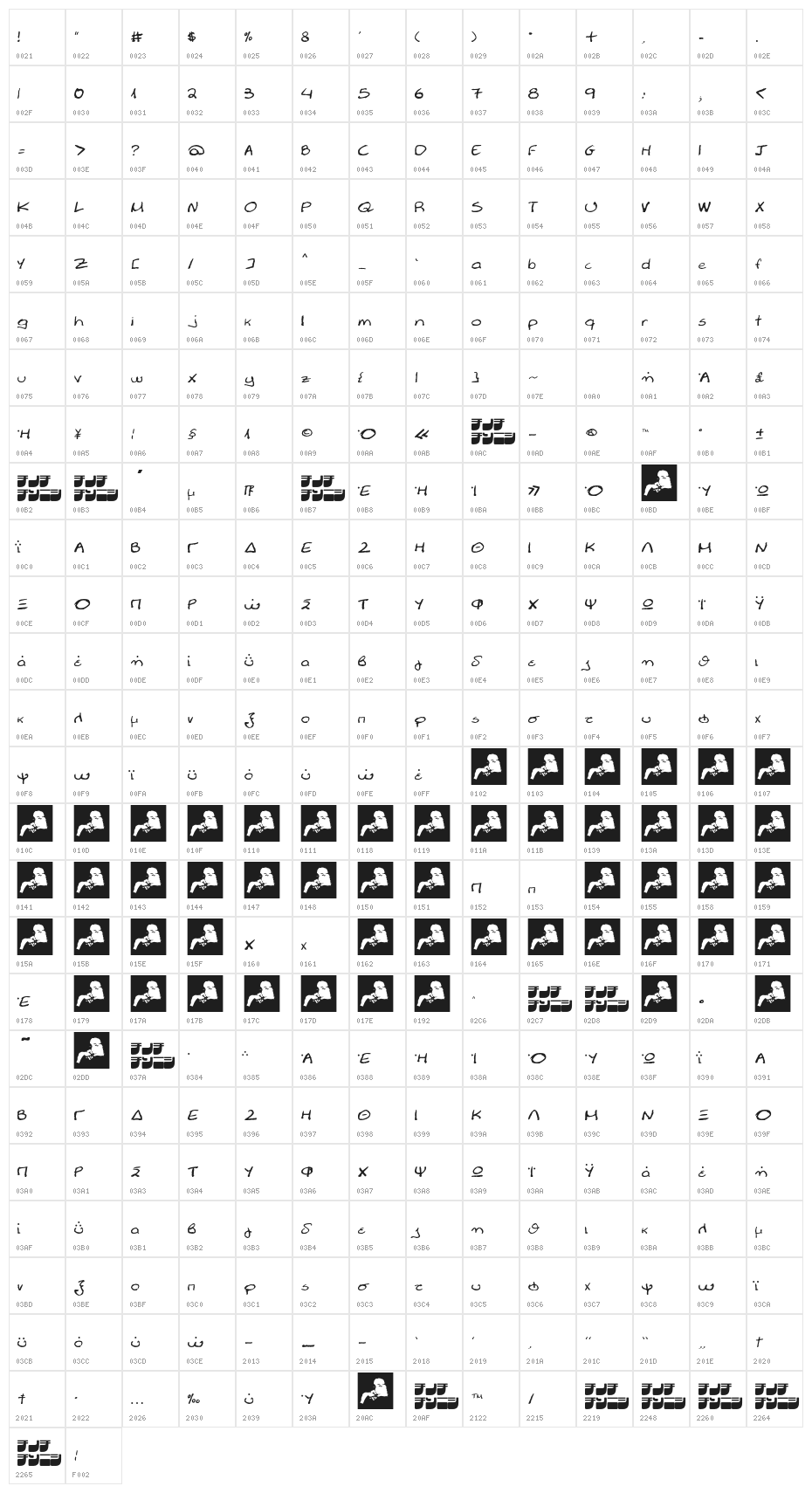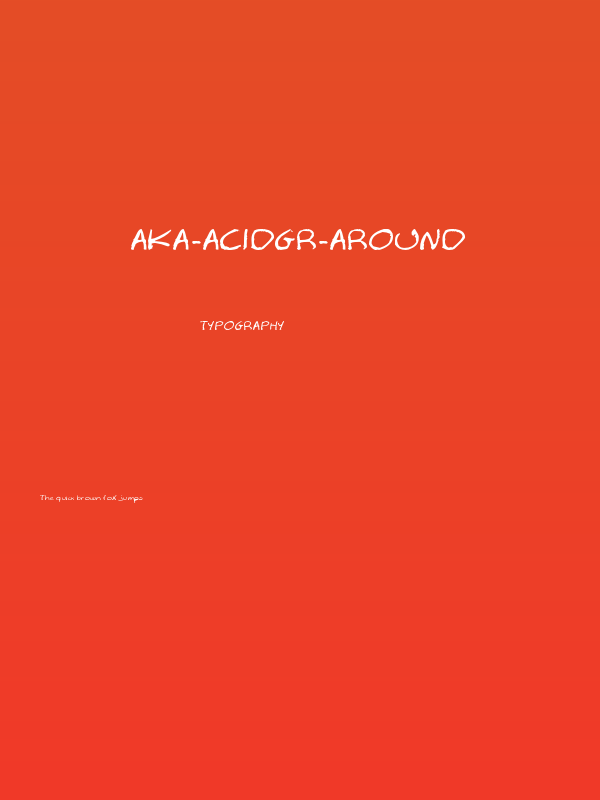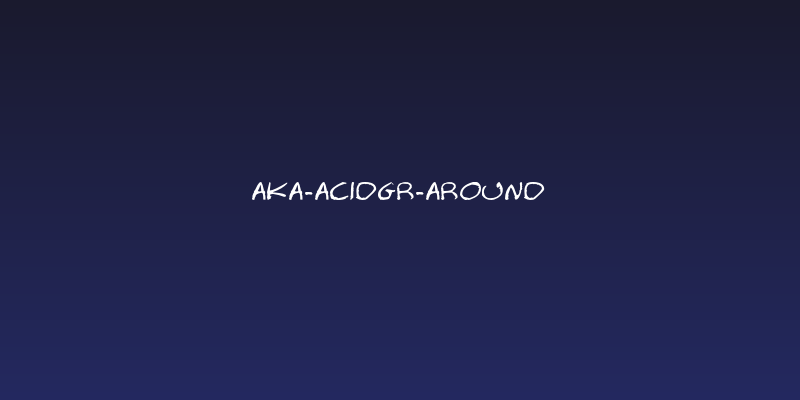
Aka-AcidGR-Around Font
Aka-AcidGR-Around Description
This font features a playful and dynamic handwritten style, characterized by its irregular strokes and organic flow. The letters have a casual, artistic feel, with varying thickness that adds a sense of movement and energy. The uppercase and lowercase letters maintain a consistent style, while the numerals and special characters complement the overall aesthetic. The font's unique appearance makes it suitable for creative projects that require a personal touch.
| Proposed Projects | Ideal for greeting cards, invitations, artistic posters, and personal branding. |